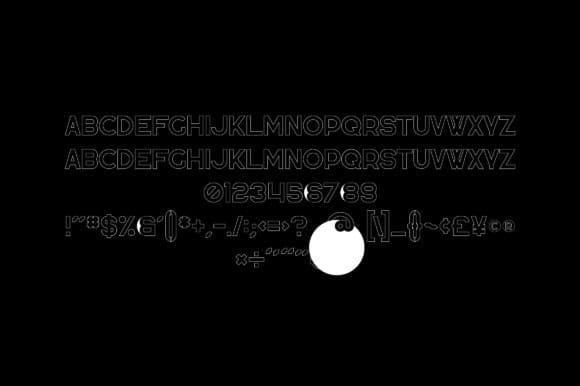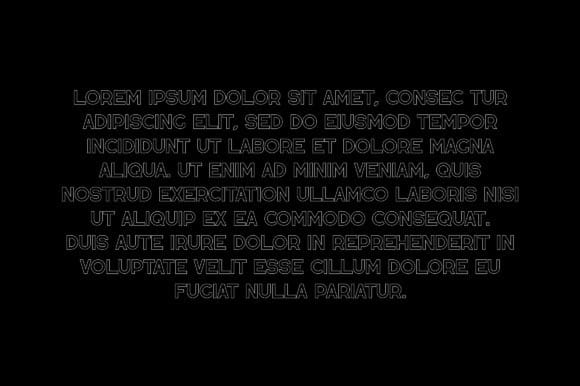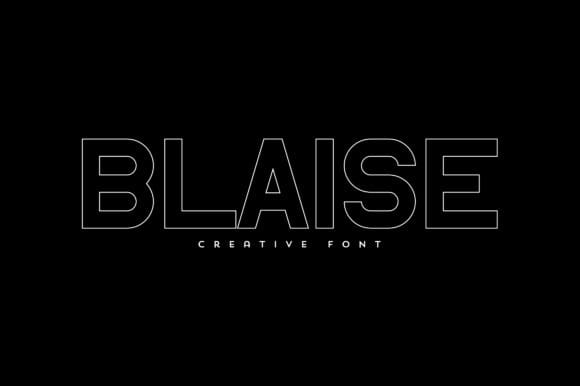
Blaise Font
Blaise Font is an elegant and versatile font that will make your typography truly unique! It will enchant every logo, branding, headline, or plain text!